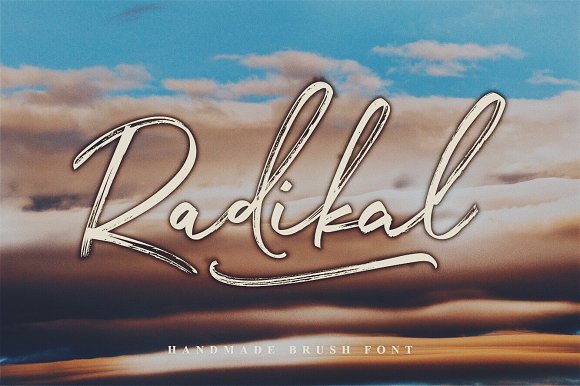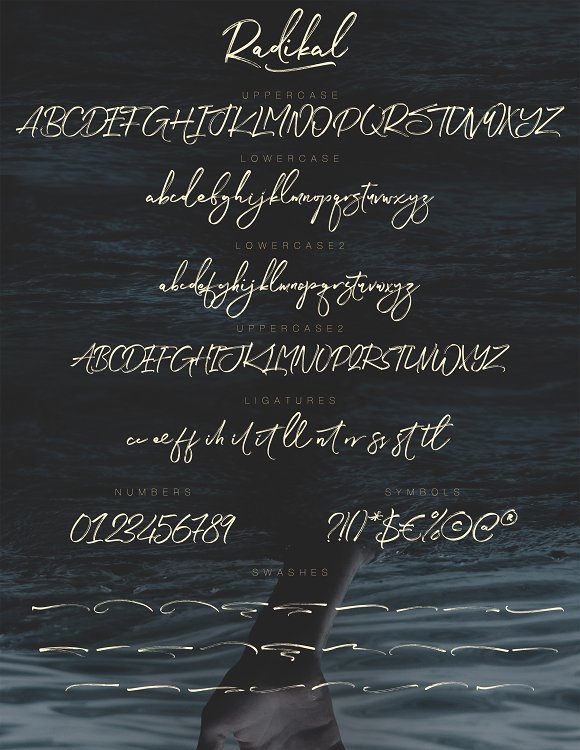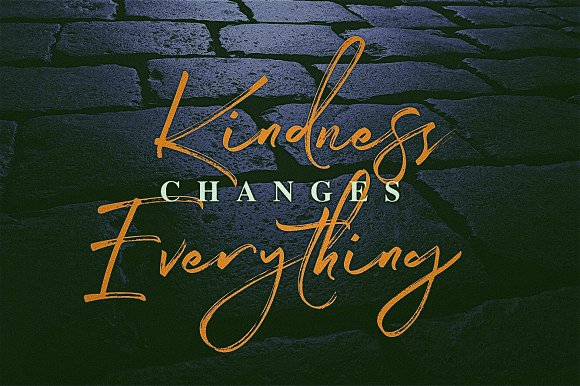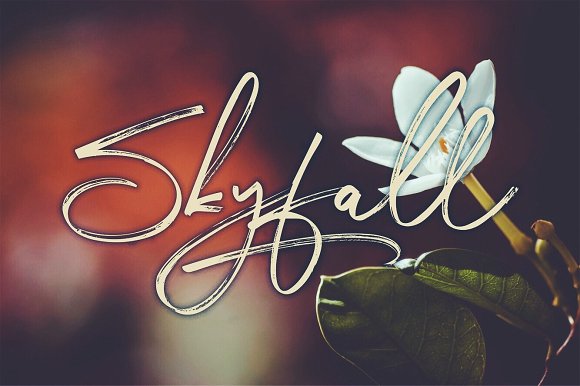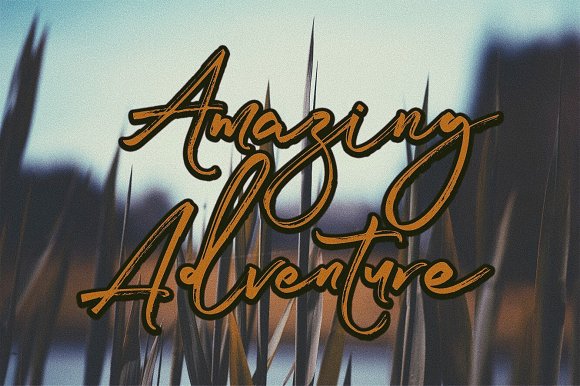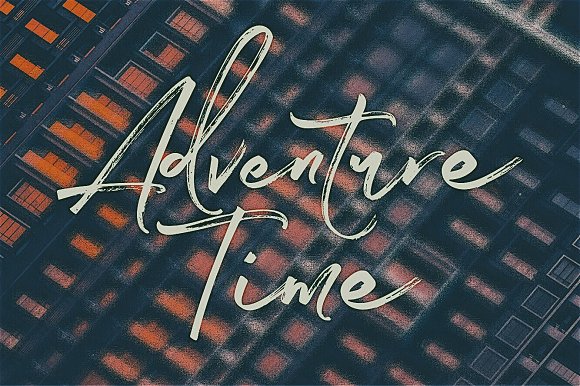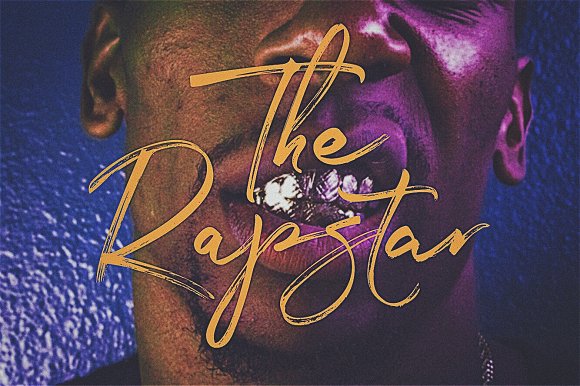
Radikal Font
Introducing Radikal Brush Font
Thin and textured brush font.Far from monotony.A clean, plain and legible font.
Wedding invitations, greeting cards, poster designs, print designs, T-shirt prints, magazine designs, corporate designs, vintage logo, minimal logo, posters, phone prints, birthday cards and many other field assistants.